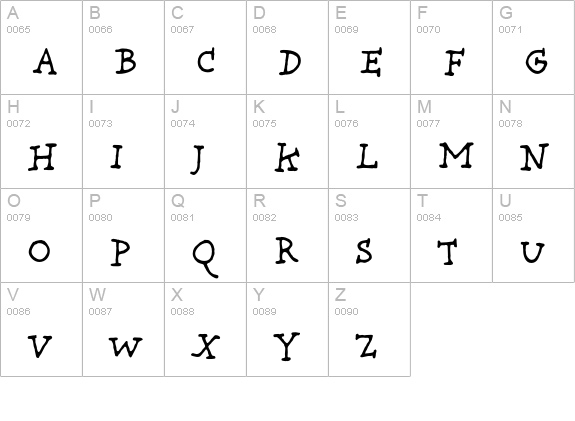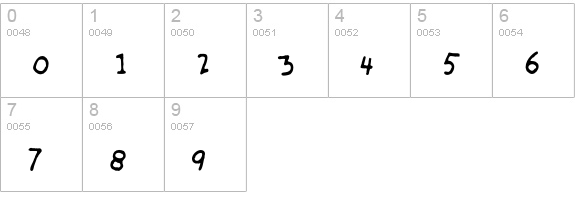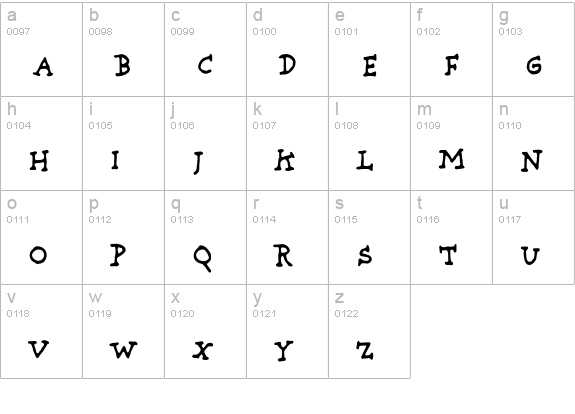
Providence-Caps Font Details
Providence-Caps font is a stylish and elegant typeface that exudes sophistication and charm. With its unique uppercase characters and delicate serifs, it adds a touch of class to any design project. The timeless appeal of Providence-Caps makes it a versatile choice for a wide range of applications, from branding to editorial design. The best part about Providence-Caps font is that it is available for free download at FontsMarket.com. This means that you can easily access this high-quality font without any cost, making it a valuable addition to your font library. Whether you're working on a personal project or a client's design, Providence-Caps font is sure to elevate the overall look and feel with its timeless elegance. Download it today and add a touch of sophistication to your next design endeavor.